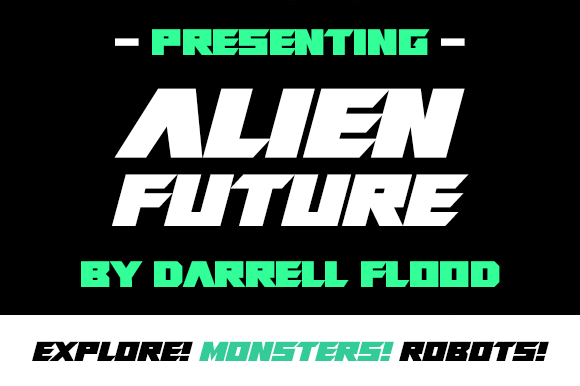
Step into the Cosmos with Alien Future Font
Have you ever found yourself lost in a world of possibilities, surrounded by a sea of blank pages and endless design possibilities? That’s exactly where I was when I stumbled upon the Alien Future Font – an ultrabold, slick and stylish futuristic font that perfectly captured the essence of sci-fi adventures and hi-tech themes.
This edgy modern font is more than just a design element; it’s a gateway to uncharted territories of creativity. Whether you’re a seasoned designer or a budding artist, the Alien Future Font offers unparalleled versatility, making it an invaluable addition to any design arsenal.
With its unique blend of style and functionality, the Alien Future Font is set to revolutionize the world of design, one pixel at a time.
Alien Future Font Key Features
- Unique Characteristics: Alien Future Font features a unique blend of futuristic and sci-fi elements, with intricate details and shapes that evoke a sense of otherworldliness.
- Font Style: Alien Future Font comes in 3 different styles: Regular, Bold, and Italic, providing options for various design needs and preferences.
Alien Future Font Review
Overall, I found the Alien Future Font to be an interesting choice for those looking for a futuristic, high-tech feel. ✨ The font’s unique blend of angular lines and rounded edges gives it a dynamic, otherworldly appearance that’s sure to grab attention.
The font’s key features include:
- A wide range of weights and styles, from thin to bold, to suit various design needs
- A futuristic feel that’s perfect for sci-fi, tech, or futuristic-themed projects
- Good legibility, even at smaller font sizes
However, I did encounter some limitations ⚠️:
- The font may be too busy or overwhelming for more subtle or minimalist designs
- The bold weights can feel a bit too thick or clunky in certain contexts
- Some characters may not be optimized for certain languages or scripts
Overall, I’d recommend the Alien Future Font for designers who want to add a touch of futuristic flair to their projects. While it may not be the best choice for every design, it’s definitely worth considering for the right projects.
Use Alien Future Font for futuristic-themed projects, such as sci-fi movies, video games, and space-inspired designs.
Use the font in combination with other futuristic elements, such as neon lights and space textures, to create a cohesive and immersive design.
Alternatives to “Alien Future Font” for Designers
1. Arial Black
Arial Black is a sans-serif font with a bold and modern appearance. It is ideal for use in titles, headings, and body text where a strong and clear font is required. Compared to Alien Future Font, Arial Black has a more straightforward and classic design, lacking the futuristic feel of Alien Future Font.
2. Space Mono
Space Mono is a monospaced sans-serif font designed specifically for coding and programming. It has a clean and modern appearance, making it suitable for use in tech-related projects and websites. Space Mono is more geometric and precise compared to Alien Future Font, with a focus on readability and clarity.
3. Museo Slab
Museo Slab is a slab-serif font with a bold and luxurious appearance. It is ideal for use in titles, headings, and body text where a sophisticated and elegant font is required. Compared to Alien Future Font, Museo Slab has a more classic and refined design, lacking the sci-fi feel of Alien Future Font.
Q: What is the recommended font size and line height for the Alien Future Font?
The recommended font size for the Alien Future Font is between 12pt and 24pt, with a line height of 1.2 to 1.5 times the font size. This will ensure optimal readability and legibility in digital and print media.